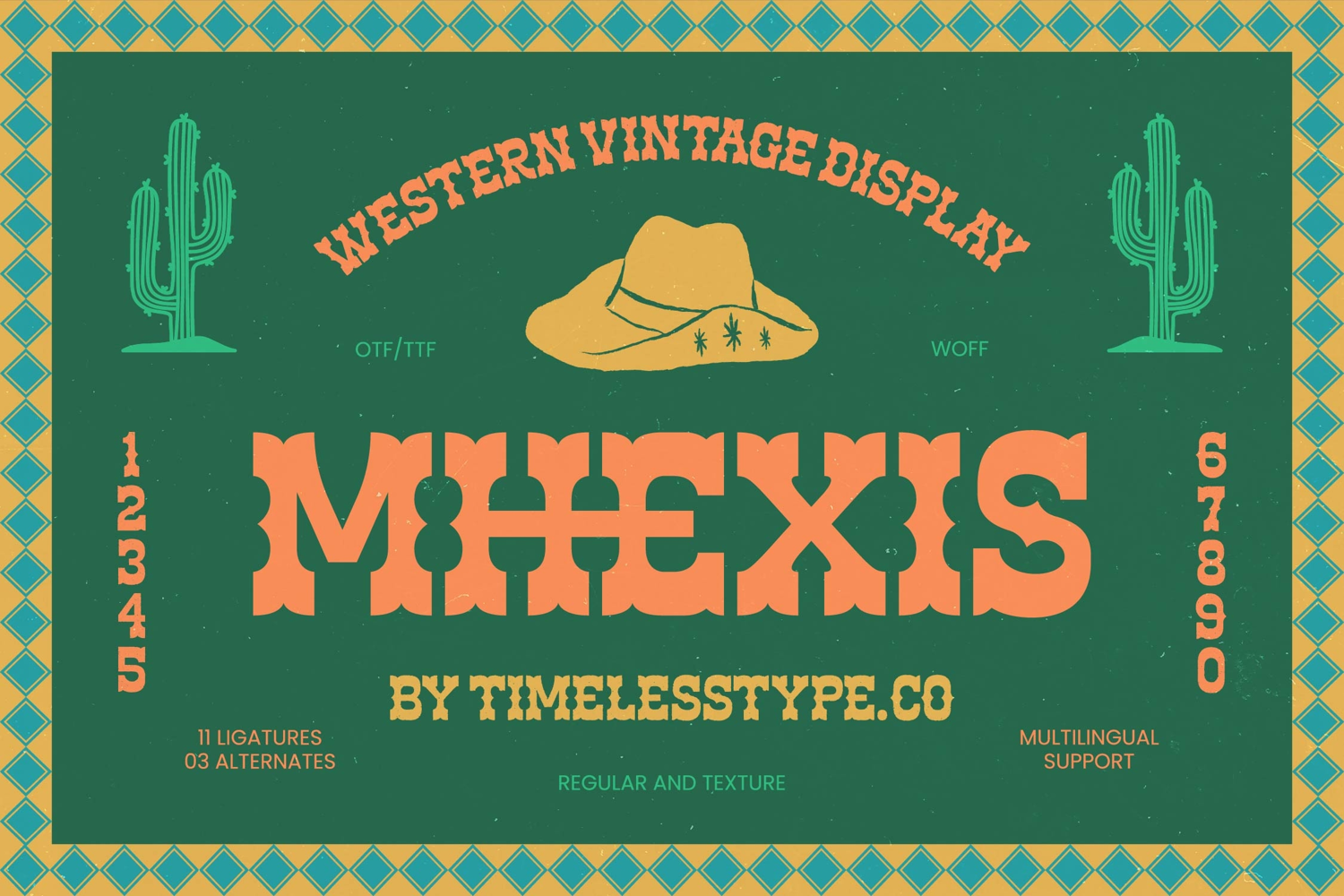
Mhexis - Western Vintage Display
Redefine the spirit of the frontier with a typeface that captures the raw essence of classic Americana and adventurous design. Mhexis - Western Vintage Display is a commanding display font that combines a rugged aesthetic with vintage charm, making it an essential tool for designers seeking a bold presence. Its thick, slab-like strokes and sharp decorative accents evoke the feeling of the Old West while maintaining a clean, professional finish.
Craft visually arresting designs using the sophisticated features and diverse stylistic options built directly into this comprehensive typography toolkit. Featuring 11 unique ligatures and 3 stylistic alternates, Mhexis - Western Vintage Display offers incredible flexibility for creating custom-looking lettering. Whether you choose the clean Regular version or the weathered Texture variant, this typeface ensures your headlines command attention with unparalleled visual impact.
Expand your creative reach across borders without compromising on style or consistency through robust technical capabilities. With its extensive multilingual support, Mhexis - Western Vintage Display adapts seamlessly across global markets, making it incredibly versatile for international projects. This ensures that your brand’s voice remains strong and coherent regardless of the linguistic landscape, providing a truly global design solution for any international project.